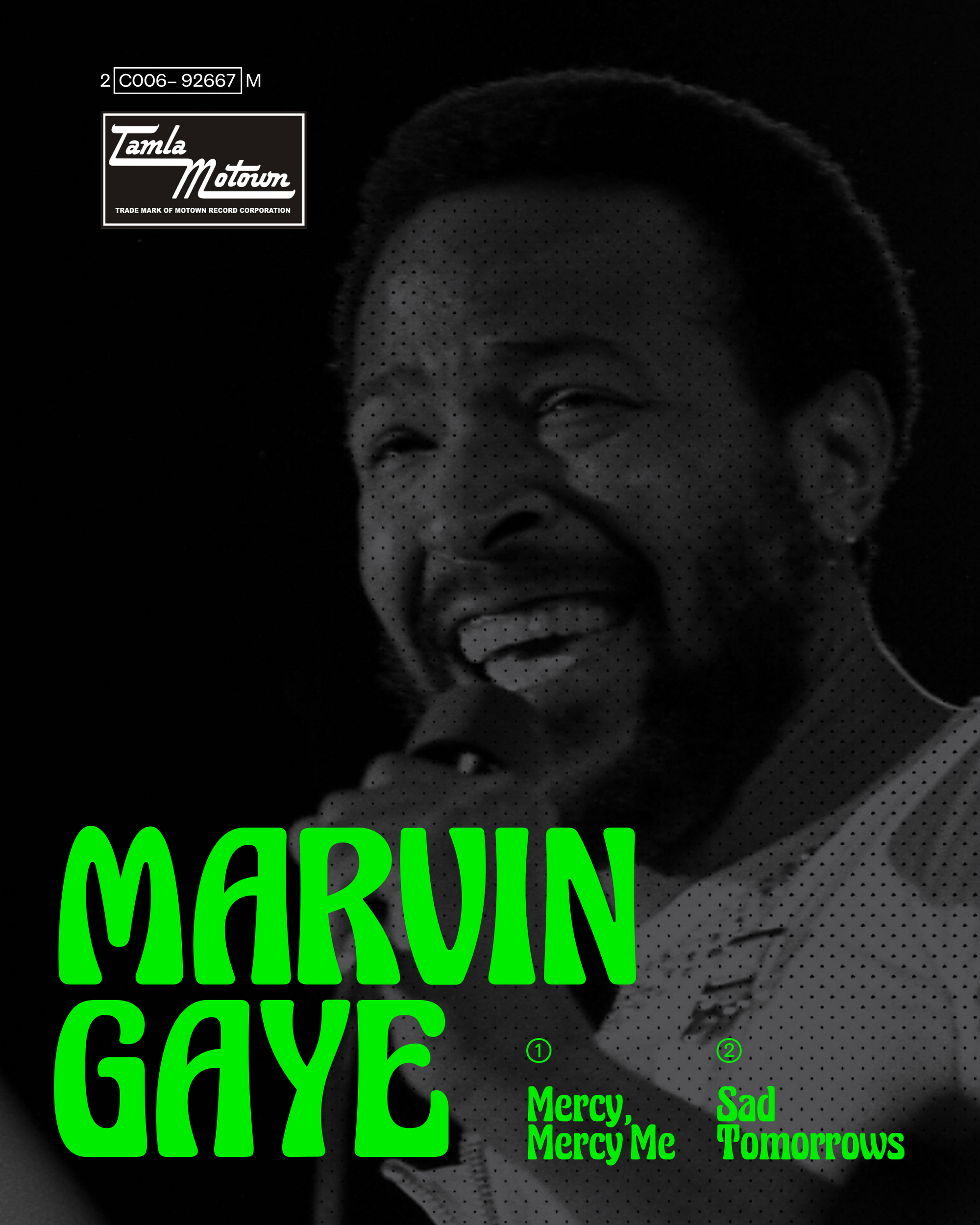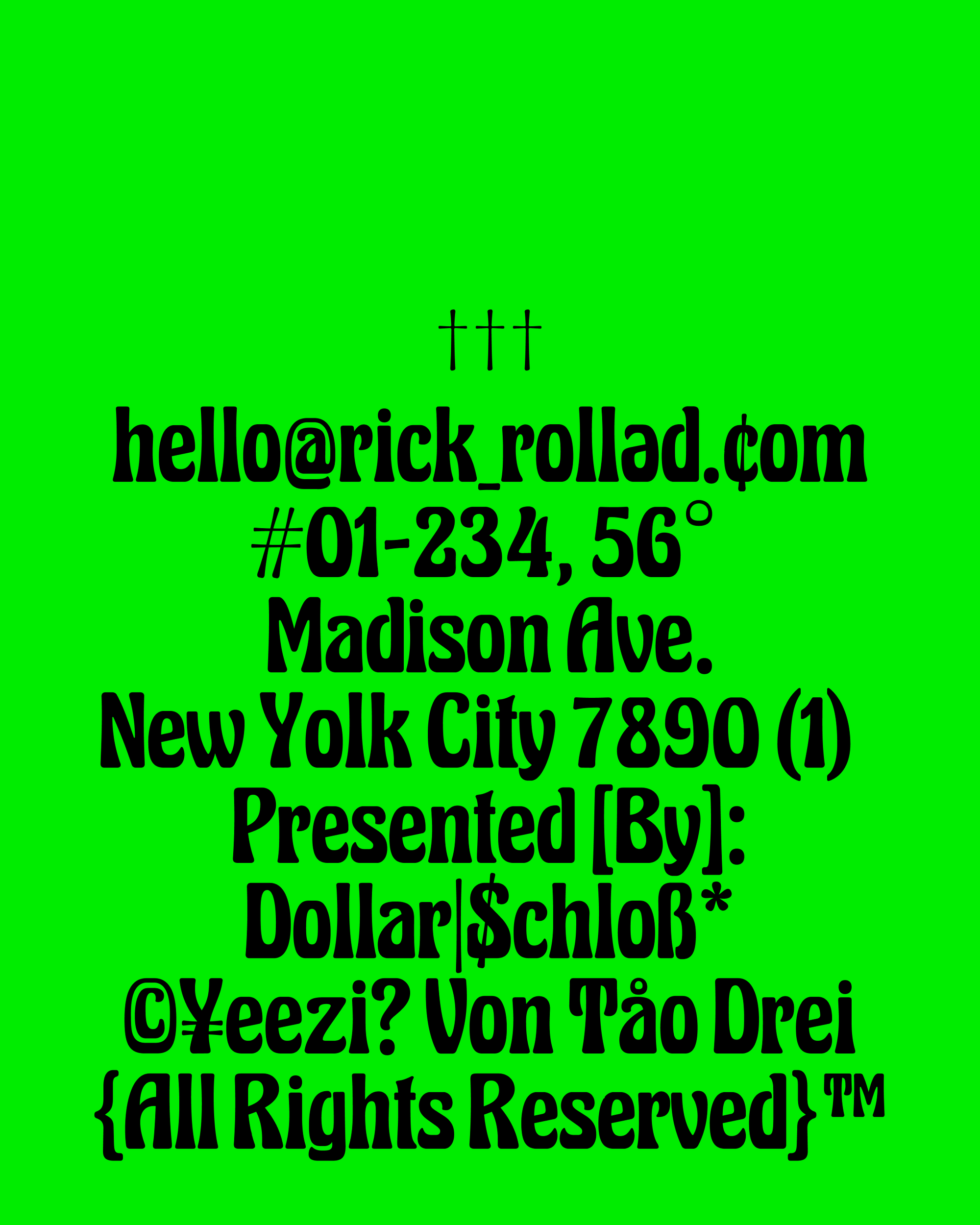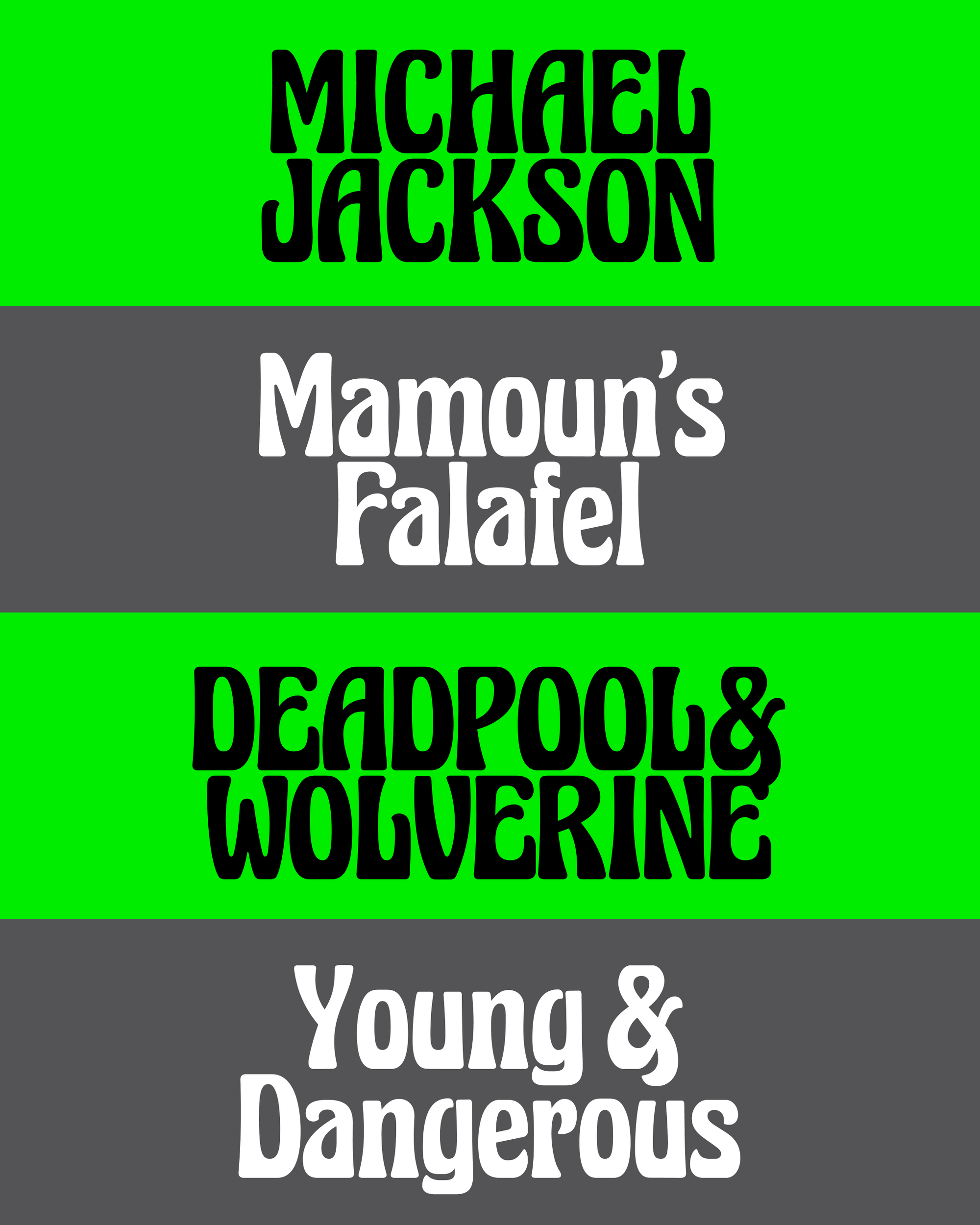
Herakles
A revival of Herkules, originally issued by Haas Foundry in 1899. The original design could be described as Art-Nouveau-ish, and is in the same “group” as other similarly eccentric types like Hobo (or Hobeaux, the better revival by James Edmondson), but features an even more extreme weight distribution with most of the weight sitting on the baseline. This effect gives it a delightful punchy character, tempered by it’s soft curves everywhere else.
While clearly not for long passages of text (although, why not?) — Herakles is an instant logo-maker. Any short words set in this scream “fireee” from the get go. Don’t believe us? Try it yourself.
As a revival, no big changes have been added other than the usual bells and whistles: we’ve expanded the character set, redrawn all the characters from scratch using high resolution images gathered online and filling in the gaps with type design know-how. We’re still working on adding extended language support (like Vietnamese) but it’s got a much better glyphs than other digitizations out there. One single weight. Available upon request.